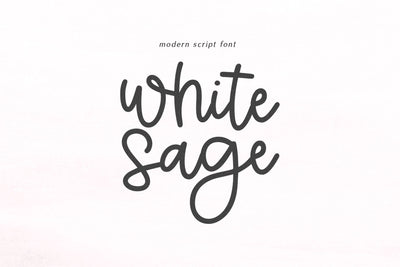
White Sage - Modern Handwritten Font
White Sage is a handwritten script font.
This font is perfect for logos, branding, wedding decor, farmhouse designs, cricut projects, svg files, stickers, mugs and more!